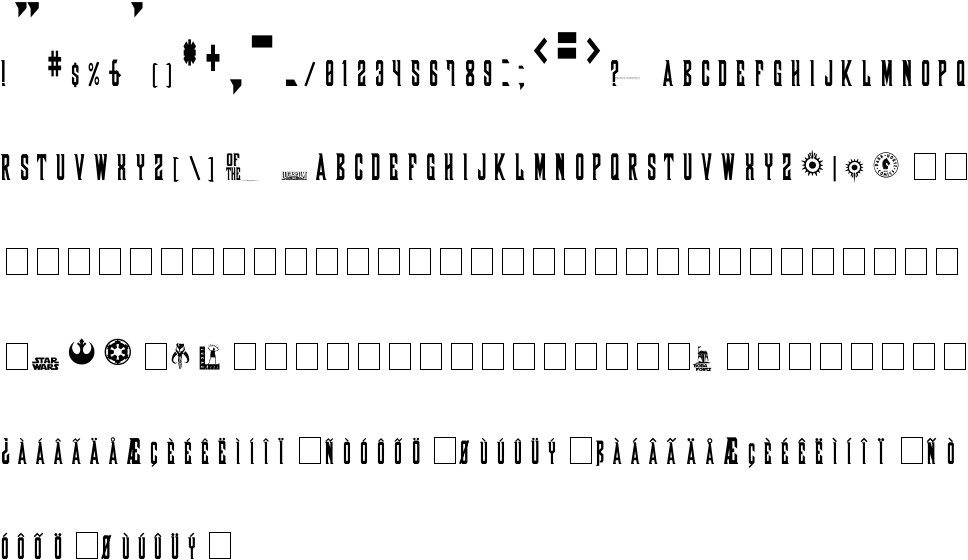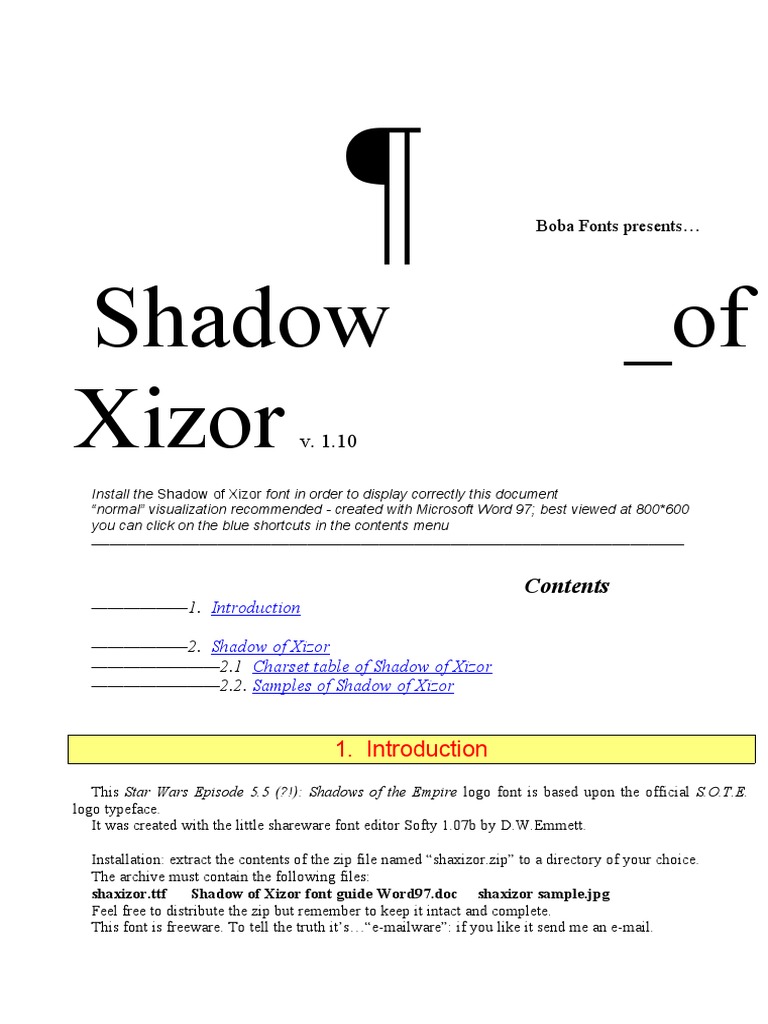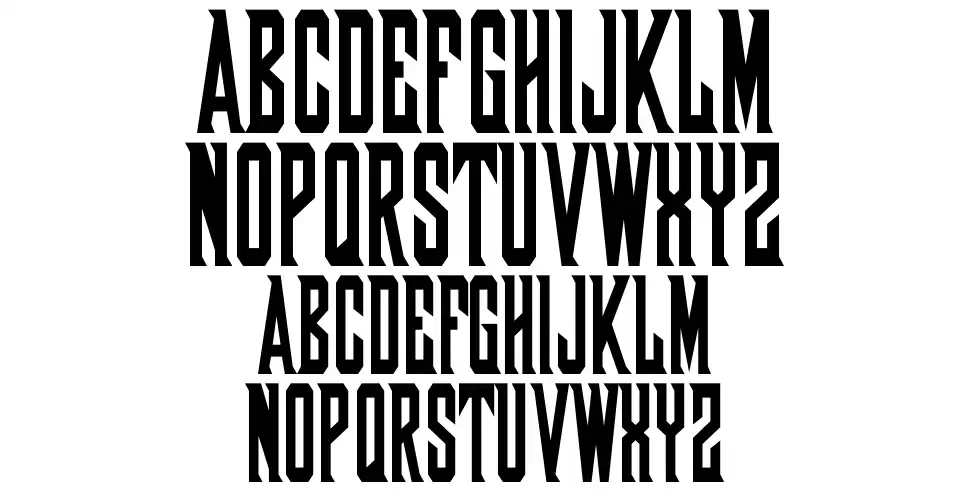
Shadow Of Xizor Font . Shadow of xizor à by boba fonts. Shadow of xizor is disney font created by boba fonts and can be used for personal as well as for commercial use for free for civil purposes only. Shadow of xizor is a narrow serif font that reproduces the original shadows of the empire logo’s typeface. Download shadow of xizor font for free! Shadow of xizor is a narrow serif font that reproduces the original shadows of the empire logo’s typeface. 93,288 downloads (12 yesterday) 100% free. Shadow of xizor font is free for both personel and commercial usages. The charset includes the underline logo ornament, the top star wars logo ornament and a of the mini letter group. Download shadow of xizor font from free cdn or use it on your website as webfont. The basic set supports all lowercase letters alongside other symbols for added levels of iconography. Shadow of xizor is a narrow serif font that reproduces the original shadows of the empire logo's typeface. Shadow of xizor font is a gothic, modern font designed by boba fonts.
The charset includes the underline logo ornament, the top star wars logo ornament and a of the mini letter group. Shadow of xizor is a narrow serif font that reproduces the original shadows of the empire logo’s typeface. Shadow of xizor font is a gothic, modern font designed by boba fonts. Shadow of xizor à by boba fonts. The basic set supports all lowercase letters alongside other symbols for added levels of iconography. Download shadow of xizor font for free! Download shadow of xizor font from free cdn or use it on your website as webfont. Shadow of xizor is a narrow serif font that reproduces the original shadows of the empire logo's typeface. Shadow of xizor is disney font created by boba fonts and can be used for personal as well as for commercial use for free for civil purposes only. 93,288 downloads (12 yesterday) 100% free.
Shadow Of Xizor Font Shadow of xizor is a narrow serif font that reproduces the original shadows of the empire logo’s typeface. Shadow of xizor à by boba fonts. Shadow of xizor is a narrow serif font that reproduces the original shadows of the empire logo's typeface. Download shadow of xizor font for free! Download shadow of xizor font from free cdn or use it on your website as webfont. The basic set supports all lowercase letters alongside other symbols for added levels of iconography. Shadow of xizor is a narrow serif font that reproduces the original shadows of the empire logo’s typeface. Shadow of xizor is a narrow serif font that reproduces the original shadows of the empire logo’s typeface. Shadow of xizor font is a gothic, modern font designed by boba fonts. The charset includes the underline logo ornament, the top star wars logo ornament and a of the mini letter group. Shadow of xizor font is free for both personel and commercial usages. 93,288 downloads (12 yesterday) 100% free. Shadow of xizor is disney font created by boba fonts and can be used for personal as well as for commercial use for free for civil purposes only.
15 Best Star Wars Fonts To Download 2024 Templatefor Shadow Of Xizor Font Download shadow of xizor font from free cdn or use it on your website as webfont. The basic set supports all lowercase letters alongside other symbols for added levels of iconography. Shadow of xizor à by boba fonts. Shadow of xizor font is a gothic, modern font designed by boba fonts. Shadow of xizor font is free for both personel. Shadow Of Xizor Font.
Shadow Of Xizor Font Vectordad Shadow Of Xizor Font Shadow of xizor is disney font created by boba fonts and can be used for personal as well as for commercial use for free for civil purposes only. Shadow of xizor font is a gothic, modern font designed by boba fonts. Shadow of xizor à by boba fonts. The basic set supports all lowercase letters alongside other symbols for added. Shadow Of Xizor Font.
15 Best Star Wars Fonts To Download 2024 Templatefor Shadow Of Xizor Font 93,288 downloads (12 yesterday) 100% free. Shadow of xizor font is a gothic, modern font designed by boba fonts. The basic set supports all lowercase letters alongside other symbols for added levels of iconography. Shadow of xizor à by boba fonts. Shadow of xizor is a narrow serif font that reproduces the original shadows of the empire logo’s typeface. Shadow. Shadow Of Xizor Font.
Shadow of Xizor by Boba Fonts at Shadow Of Xizor Font Shadow of xizor font is a gothic, modern font designed by boba fonts. The charset includes the underline logo ornament, the top star wars logo ornament and a of the mini letter group. 93,288 downloads (12 yesterday) 100% free. Shadow of xizor is disney font created by boba fonts and can be used for personal as well as for commercial. Shadow Of Xizor Font.
Shadow Of Xizor Font UpFonts Shadow Of Xizor Font The basic set supports all lowercase letters alongside other symbols for added levels of iconography. Shadow of xizor is a narrow serif font that reproduces the original shadows of the empire logo's typeface. The charset includes the underline logo ornament, the top star wars logo ornament and a of the mini letter group. 93,288 downloads (12 yesterday) 100% free. Shadow. Shadow Of Xizor Font.
Shadow of Xizor Regular truetype font Shadow Of Xizor Font Shadow of xizor is a narrow serif font that reproduces the original shadows of the empire logo's typeface. Download shadow of xizor font from free cdn or use it on your website as webfont. Shadow of xizor font is a gothic, modern font designed by boba fonts. The charset includes the underline logo ornament, the top star wars logo ornament. Shadow Of Xizor Font.
Shadow of Xizor Regular truetype font Shadow Of Xizor Font 93,288 downloads (12 yesterday) 100% free. The charset includes the underline logo ornament, the top star wars logo ornament and a of the mini letter group. The basic set supports all lowercase letters alongside other symbols for added levels of iconography. Shadow of xizor is a narrow serif font that reproduces the original shadows of the empire logo's typeface. Shadow. Shadow Of Xizor Font.